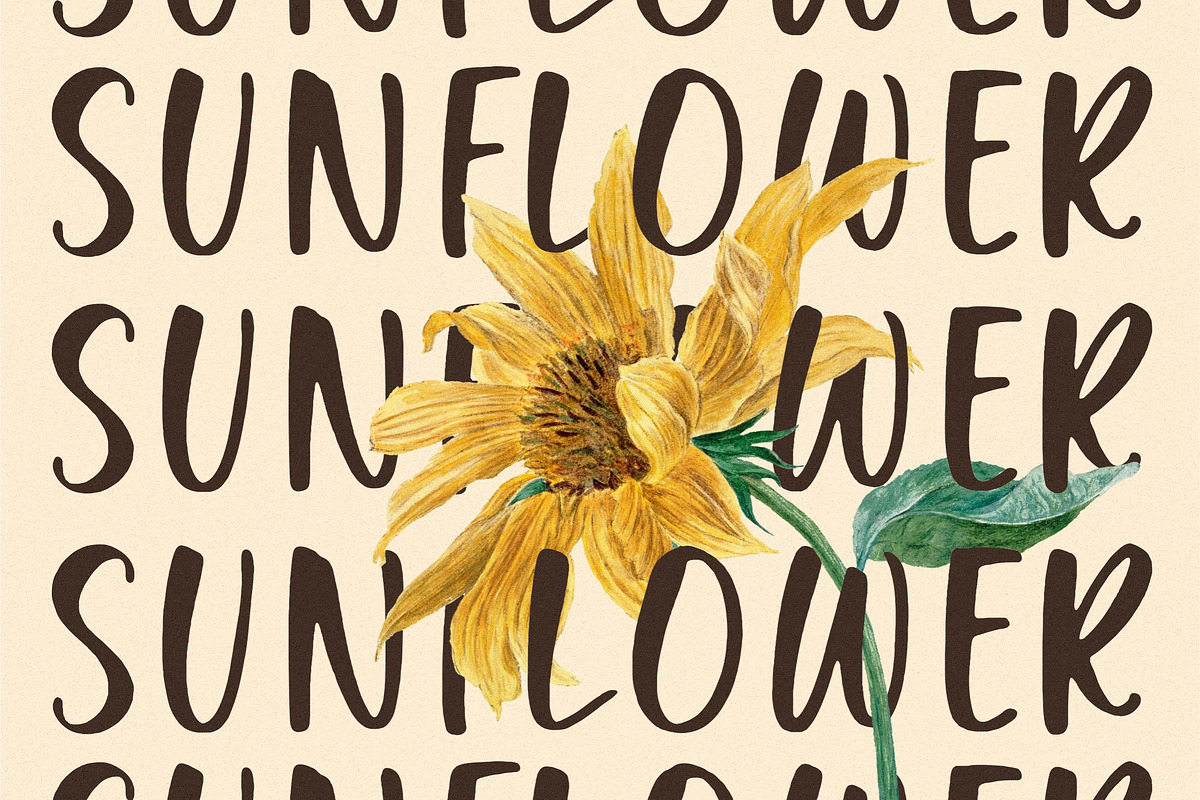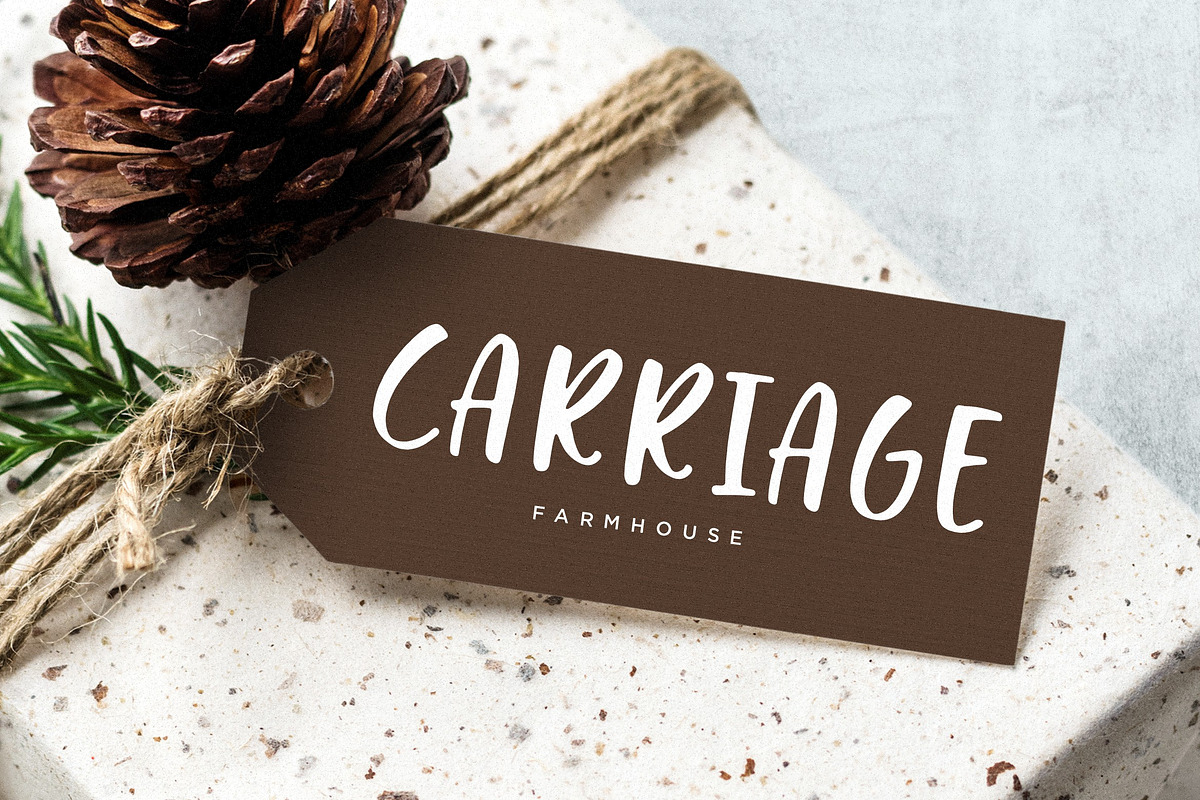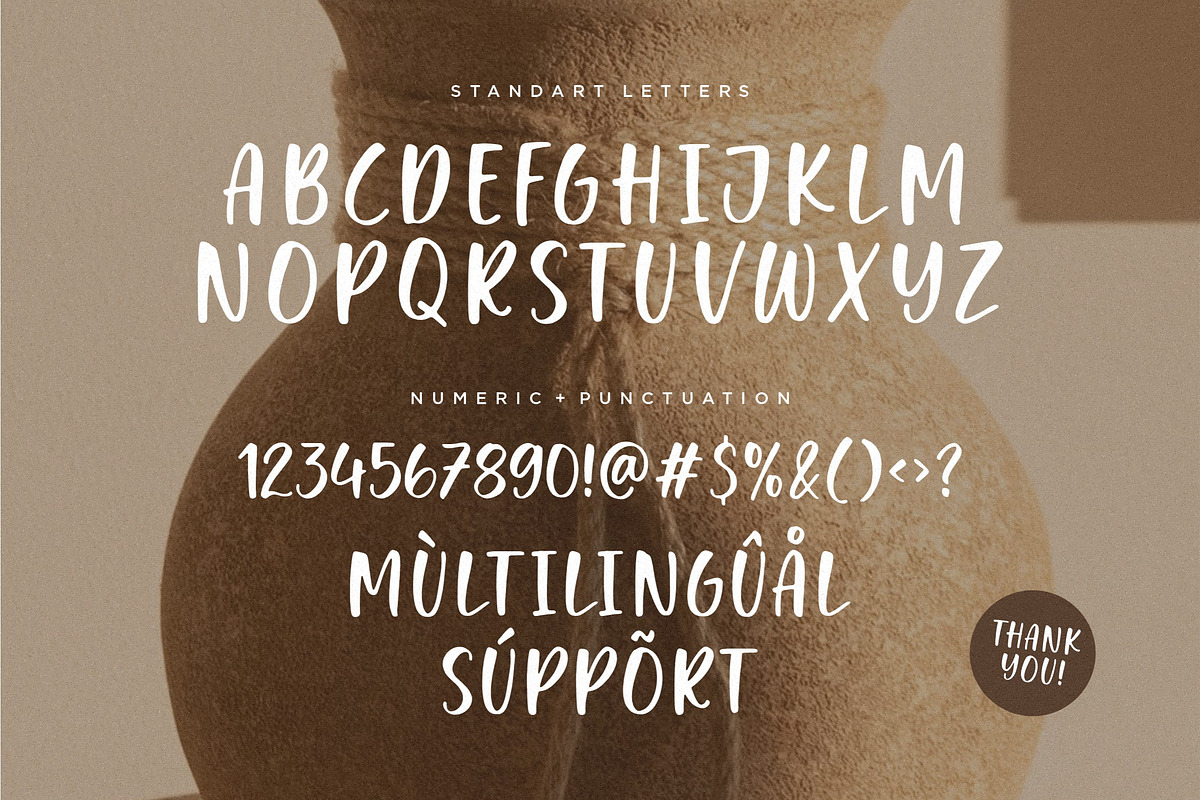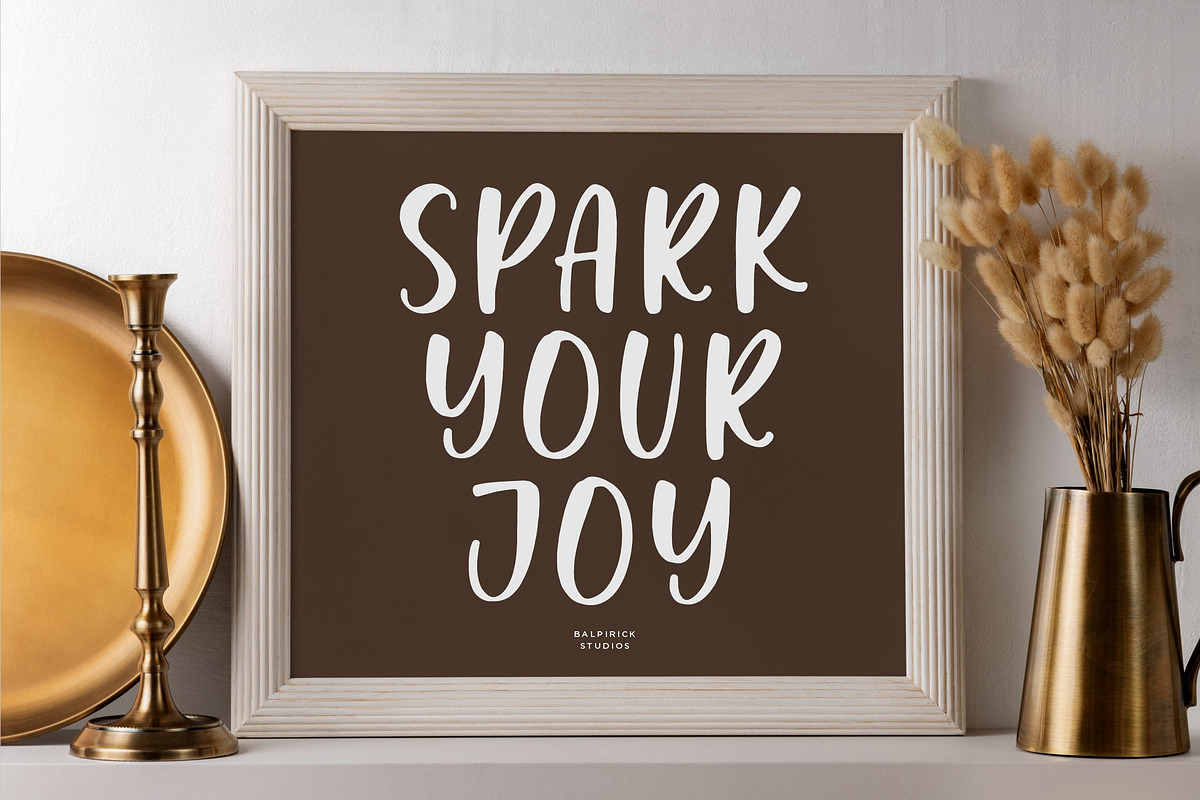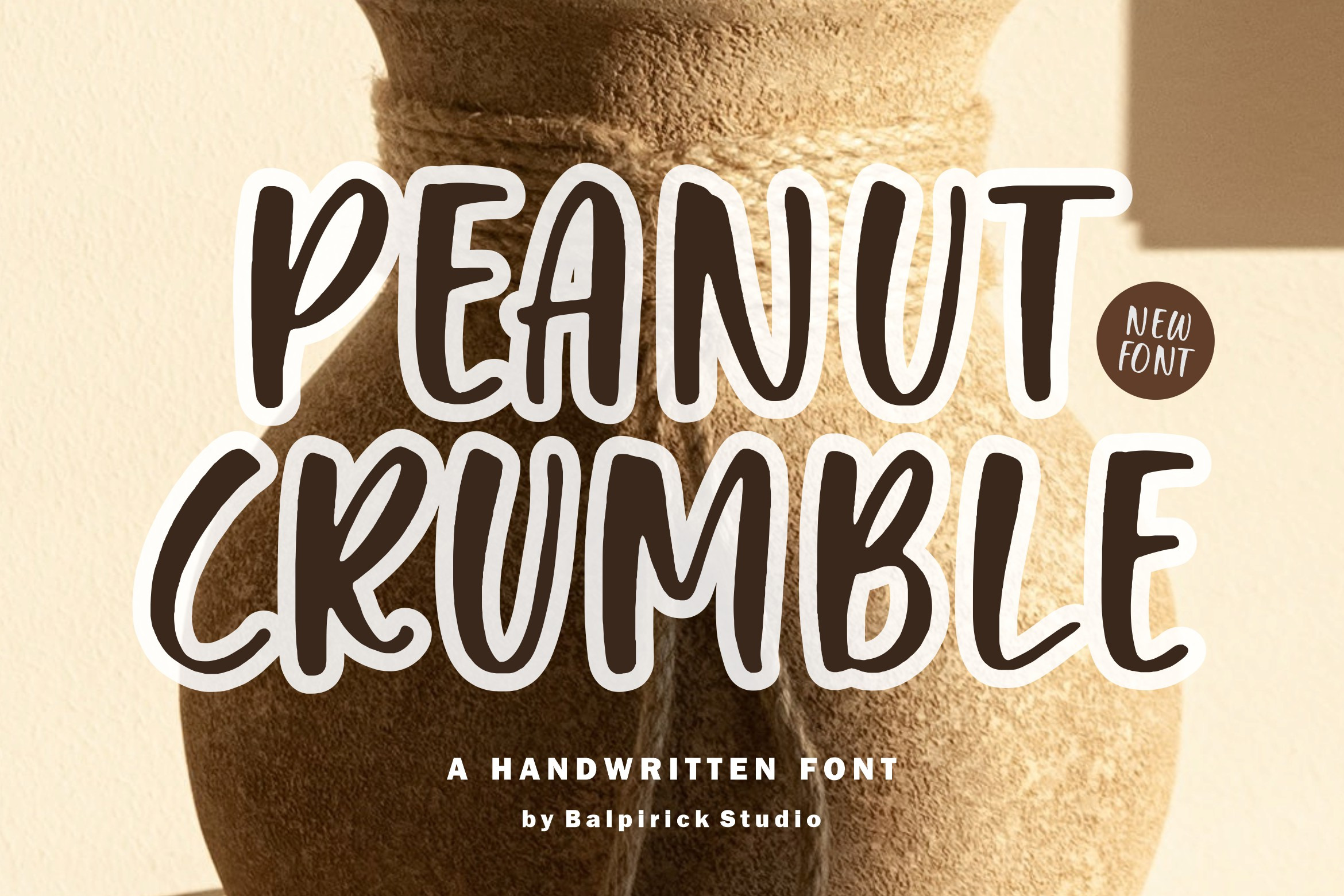
Peanut Crumble - Handwritten Font
Introducing by Balpirick Studio.
Peanut Crumble is a Handwritten Font.
Whether you’re using it for crafts, digital design, presentations, or making greeting cards, this font has the potential to become your favorite go-to font, no matter the occasion!
This font only has allcaps letters.
- also multilingual support